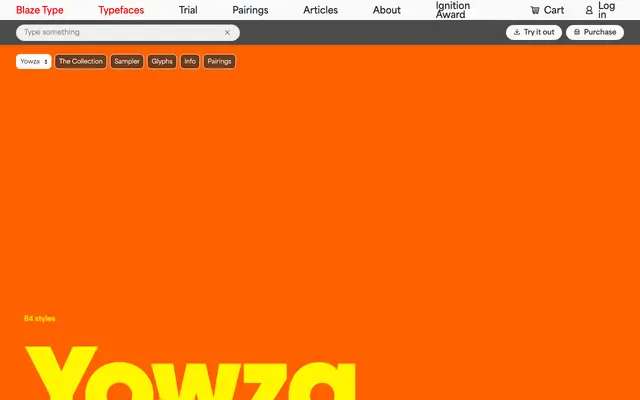
Yowza specimen from Blaze Type
An 84-style humanist sans from Blaze Type spanning seven subfamilies across display, standard and text optical sizes, with sharp and softened variants throughout.
The collection divides into two broad strands: standard cuts with conventional terminals and Soft cuts with rounded endings, each available in Display, Standard and Text sizes for optical appropriateness at different scales. A Mix subfamily sits alongside these, and all seven families share the same six weights from Regular to Black with matching italics. The range is built for systems-level deployment where a single typeface family must cover headings, body copy and interface text without stylistic discontinuity.
The family's optical size range, soft and standard variants, and warm proportions point to a humanist sans structure; the 'Soft' subfamilies with rounded terminals reinforce that classification over geometric or grotesque.